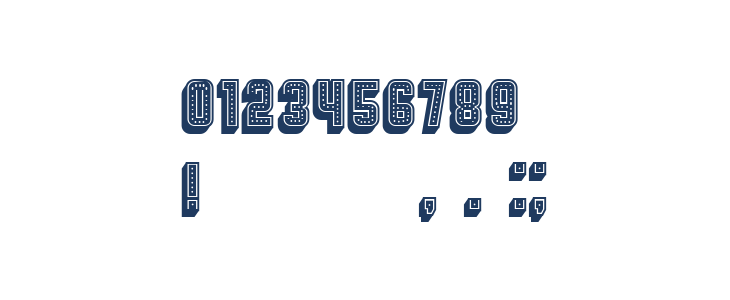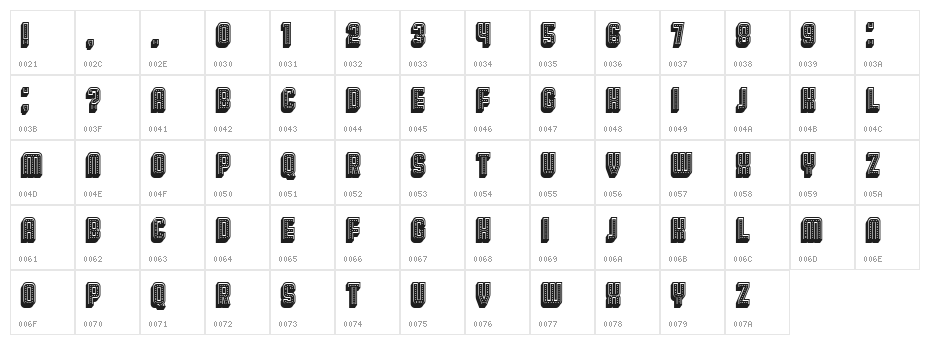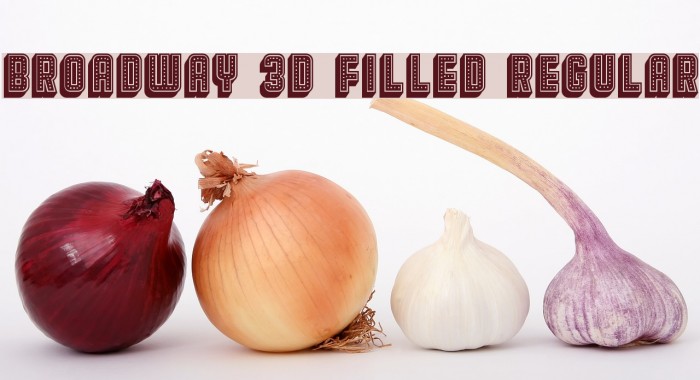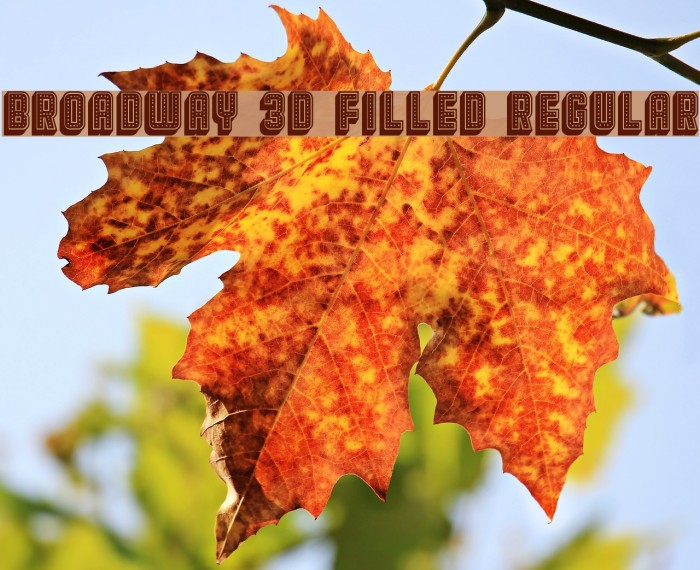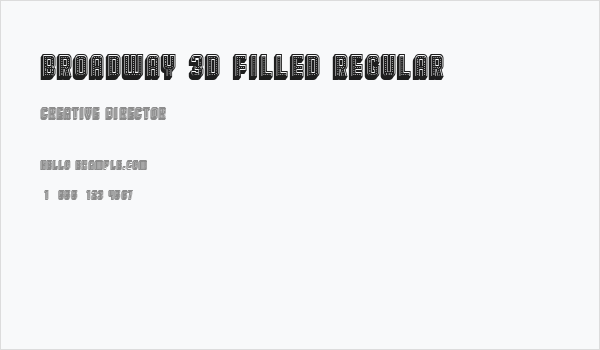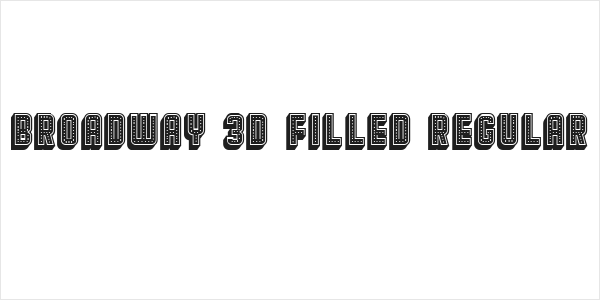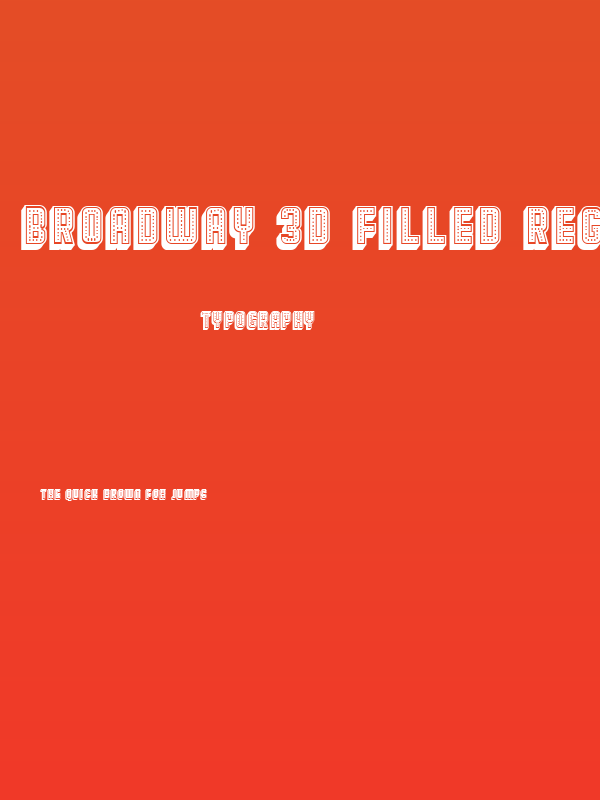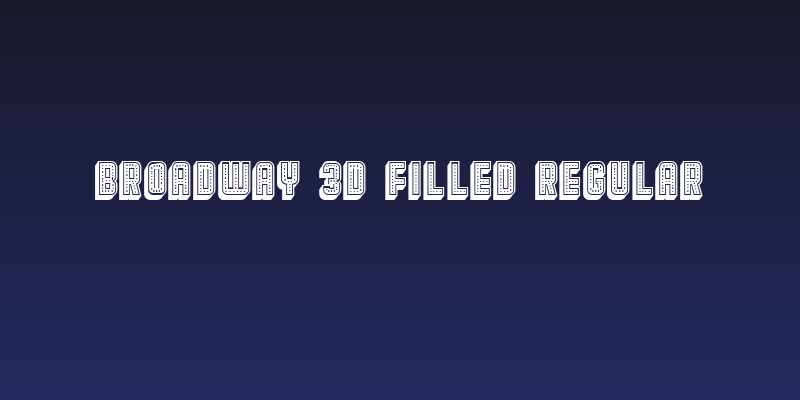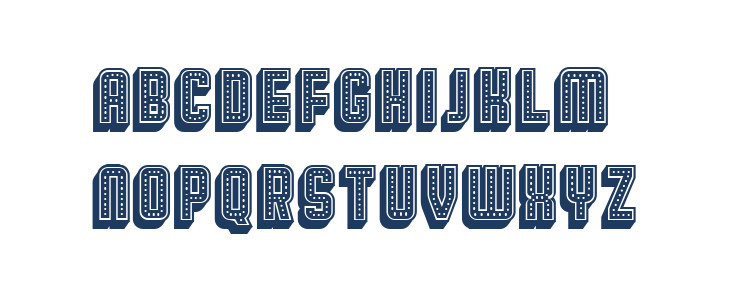
Broadway 3D Filled Regular Font
Broadway 3D Filled Regular Description
This font features a bold, three-dimensional design with a filled interior and dotted accents, creating a striking visual effect. The uppercase letters are designed with a shadow effect that gives them depth, making them stand out prominently. The characters are uniformly wide, with consistent spacing that maintains readability despite the decorative elements. The numbers and special characters follow the same style, ensuring a cohesive look across all text elements. This font is ideal for creating eye-catching headlines or signage that demands attention.
| Use Case | Headlines, Logos, Signage |
| Proposed Projects | Ideal for theatrical posters, vintage-themed designs, signage, and any project requiring a bold, attention-grabbing typeface. |